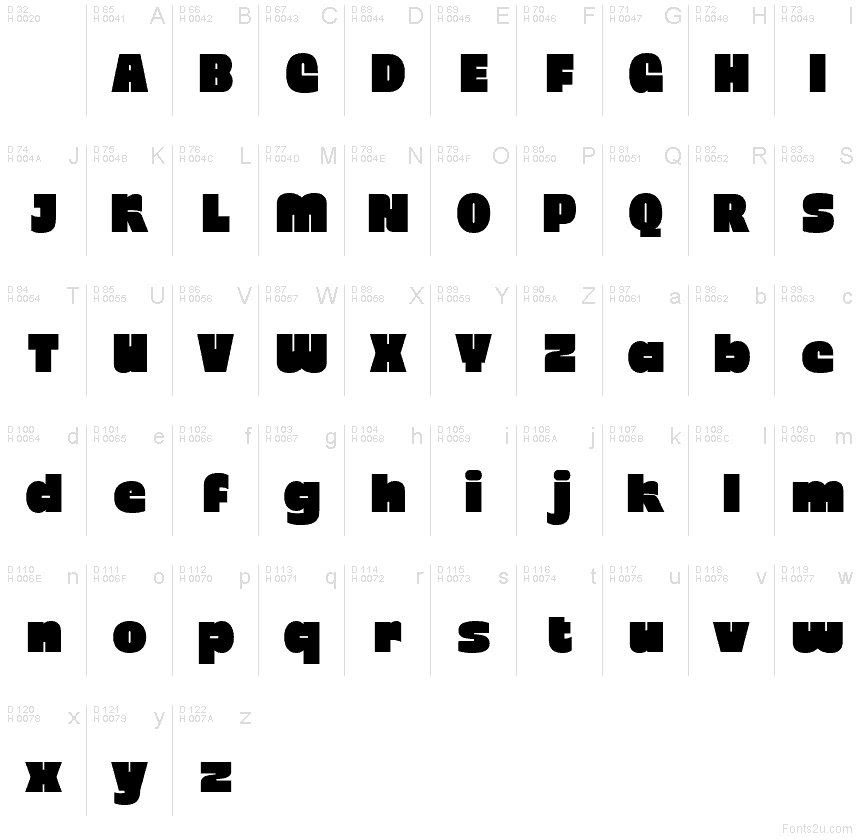
CS Culver Regular Demo
CS Culver font by Craft Supply Co. is a free bold display font. It stands out for its ultra-thick, soft‑square shapes and tight counters that carve dramatic, high-contrast silhouettes. The strokes feel punchy and compact, like ink pressed to the edge of the page, with rounded corners keeping the heft friendly rather than harsh. That rare mix—monumental weight with cushioned curves—makes headlines look both assertive and approachable.
Using CS Culver, big type locks up with confident rhythm, so it shines on posters, logos, packaging, album art, event signage, and merch. This free font thrives at large sizes; add a touch of tracking for breath. For copy or captions, pair it with a light, neutral grotesk to let CS Culver do the heavy lifting up top.